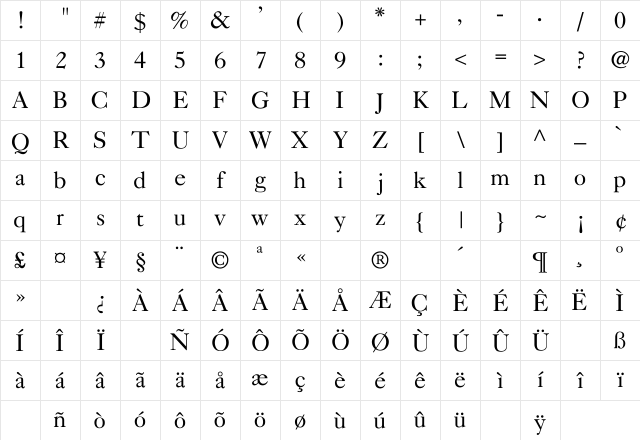
Caslon-Normal Regular
Design Context for Caslon-Normal
Caslon-Normal is a composed and adaptable typeface that performs quietly and consistently across a wide range of design contexts.